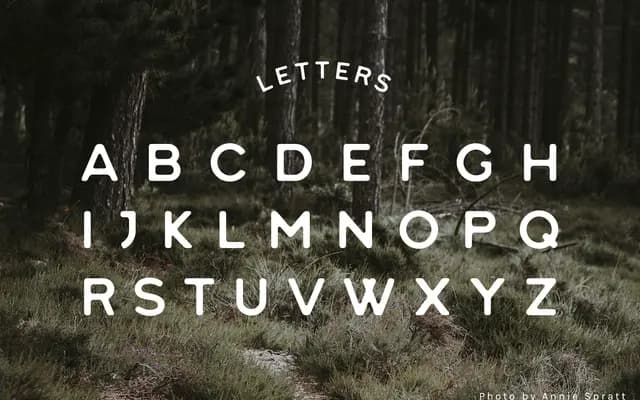
Heart of the Land
A single-weight display typeface from McLetters, sold across desktop, web, app and e-pub licences at a low price point.
Heart of the Land is a single Regular weight display face from the small independent foundry McLetters. Available under desktop, e-pub, app and webfont licences, it sits in the casual hand-lettered corner of the display market. The page provides little detail beyond the specimen, making it difficult to assess language coverage or design depth.
The name and single Regular weight, combined with the minimal product page, suggest a display-oriented casual script or hand-lettered face typical of small independent foundries selling decorative typefaces.